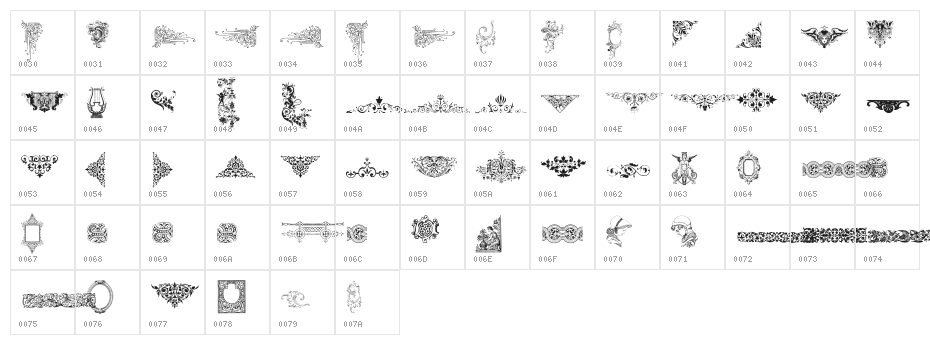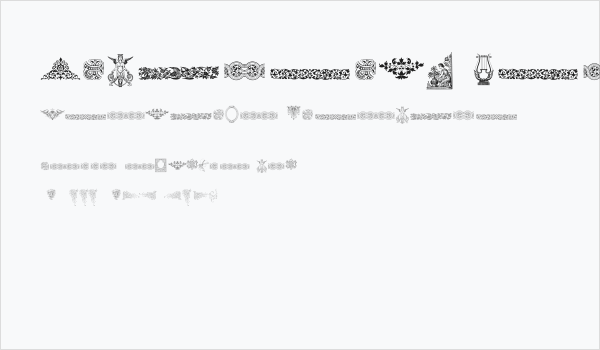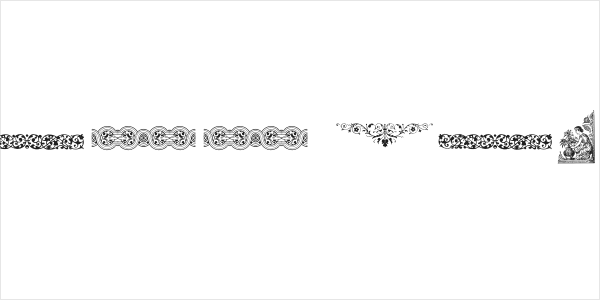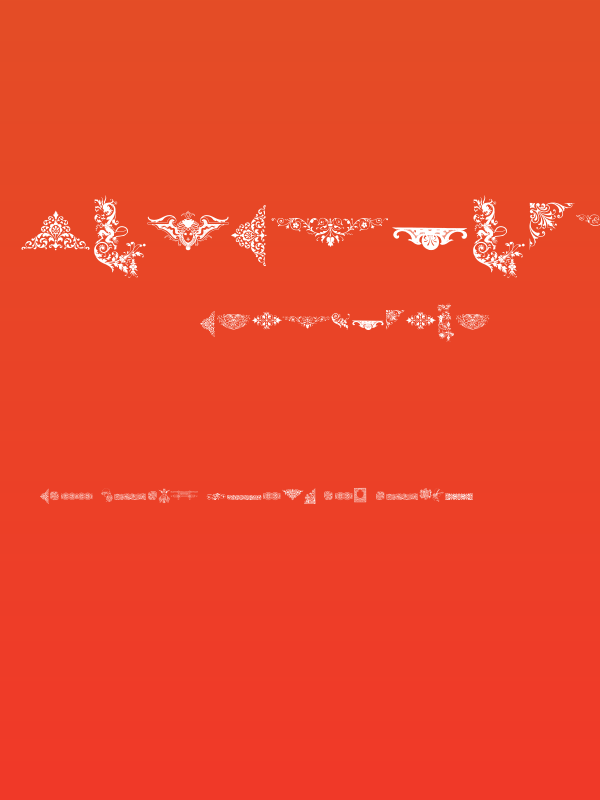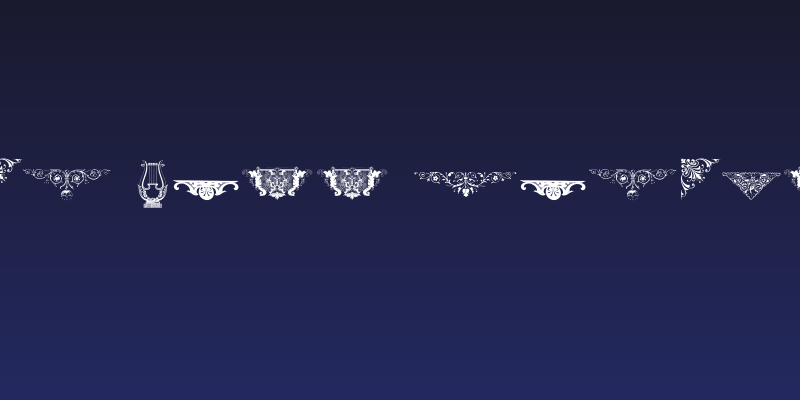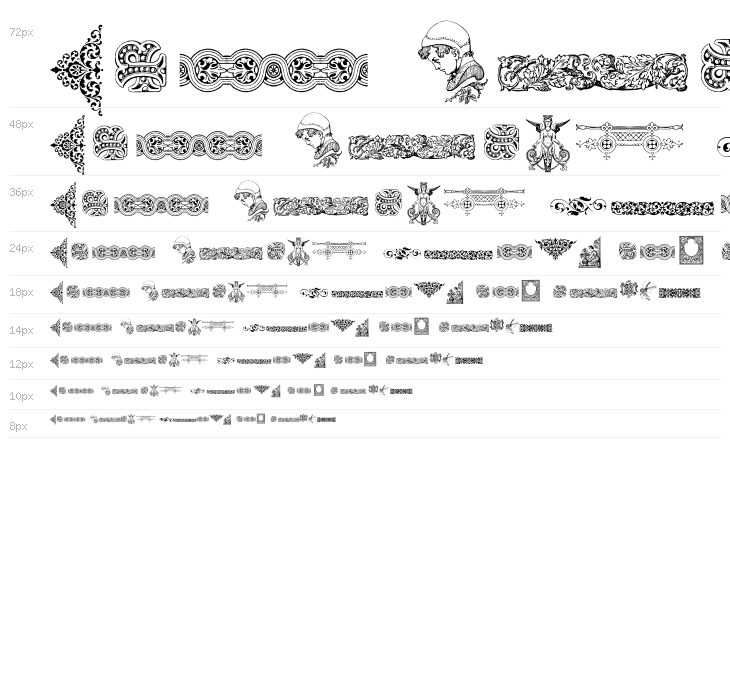
Victorian Free Ornaments Two Font
Victorian Free Ornaments Two Description
A highly decorative collection of intricate Victorian-style ornamental glyphs, featuring flourishes, borders, frames, and corner embellishments with elaborate line work and floral motifs.
| Overall Style | Victorian, Decorative, Ornamental |
| Use Case | Borders, frames, decorative accents, invitations, certificates. |
| Proposed Projects | Wedding invitations, certificates, vintage posters, book covers, decorative packaging, event programs. |